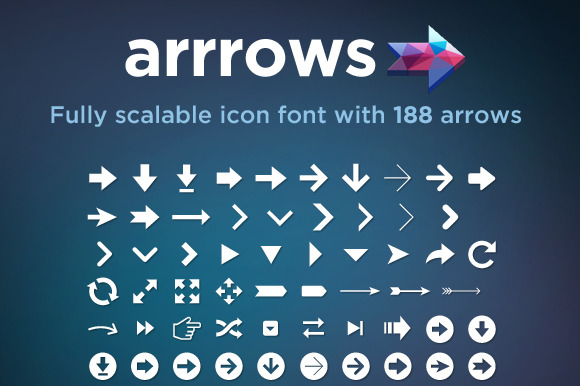
Arrrows Font
Never design an arrow again!
Arrrows is an icon font that includes 188 custom designed arrow icons. Simply install the font files to use this font for your mockups and on the web (using @font-face implementation)! Big or small, the arrows are always crisp.
Great for buttons, UI's, print work, links, navigation and more.